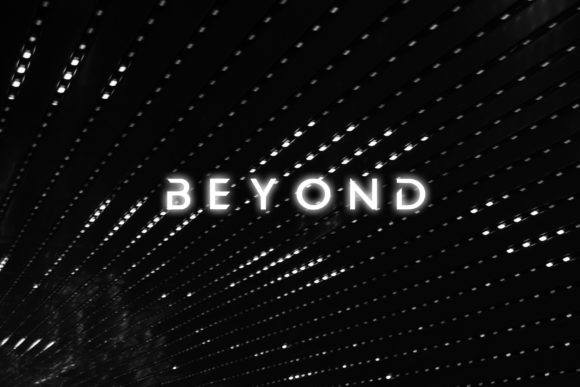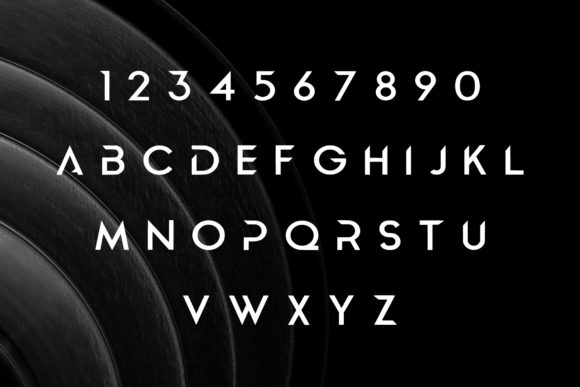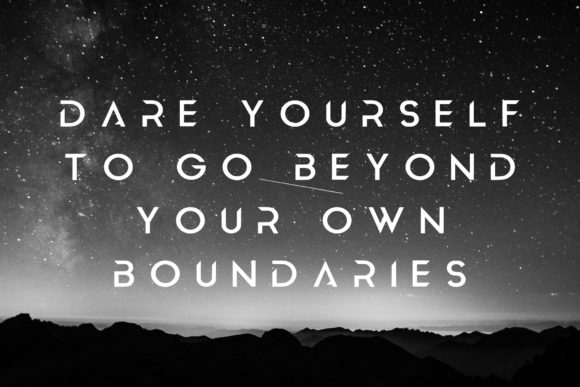
HomeSans Serif FontsBeyond Font Sans Serif Fonts Beyond Font FacebookXPinterestWhatsApp Beyond Font 1 of 3 About Beyond Font Beyondis a futuristic and clean sans serif font. It’s a great and imaginative font for any Sci Fi or robot-themed projects. DOWNLOAD NOW People also explored Bikambone Font Black Stones Font Antique Cherry Font And Now Font AZ Cruisin Font Letterman Font Brother Font Garelliye Font Vickill Font 401 0 TagsBeyondBeyond Font Previous articleMagna Semi Bold FontNext articleManic Monday Font LEAVE A REPLY Cancel reply Comment: Please enter your comment! Name:* Please enter your name here Email:* You have entered an incorrect email address! Please enter your email address here Website: Save my name, email, and website in this browser for the next time I comment. Personal Use Free Hello Sister Personal Use Free Read more about this font Dream Orphans Personal Use Free Read more about this font Vembazax Rm Personal Use Free Read more about this font Roland Personal Use Free Read more about this font BLOG Best Fonts for T-Shirt Design – Top 2025 Picks In 2025, t-shirt design has become more than just fashion—it's a form of self-expression. Whether you're... Where to Buy American Fonts Online in 2024 Elegant Wedding Invitation Fonts – Handwritten & Script Fonts Free vs Paid Fonts: Why Investing in Premium Fonts Is Worth It